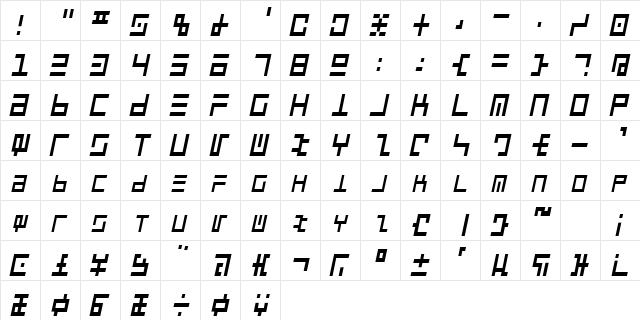
CyberspeakCondensed Oblique Font Preview
Design Context for CyberspeakCondensed Typeface
CyberspeakCondensed has a distinctly futuristic character, with geometric precision and clean angles that feel at home in technology, gaming, and sci-fi contexts. Its italic angle brings a sense of urgency and motion to the letterforms. Its narrow stance lets it pack a punch even in space-constrained designs.
Pro Tip: Try CyberspeakCondensed with generous letter-spacing in UI labels and navigation — the geometric forms benefit from room to breathe.